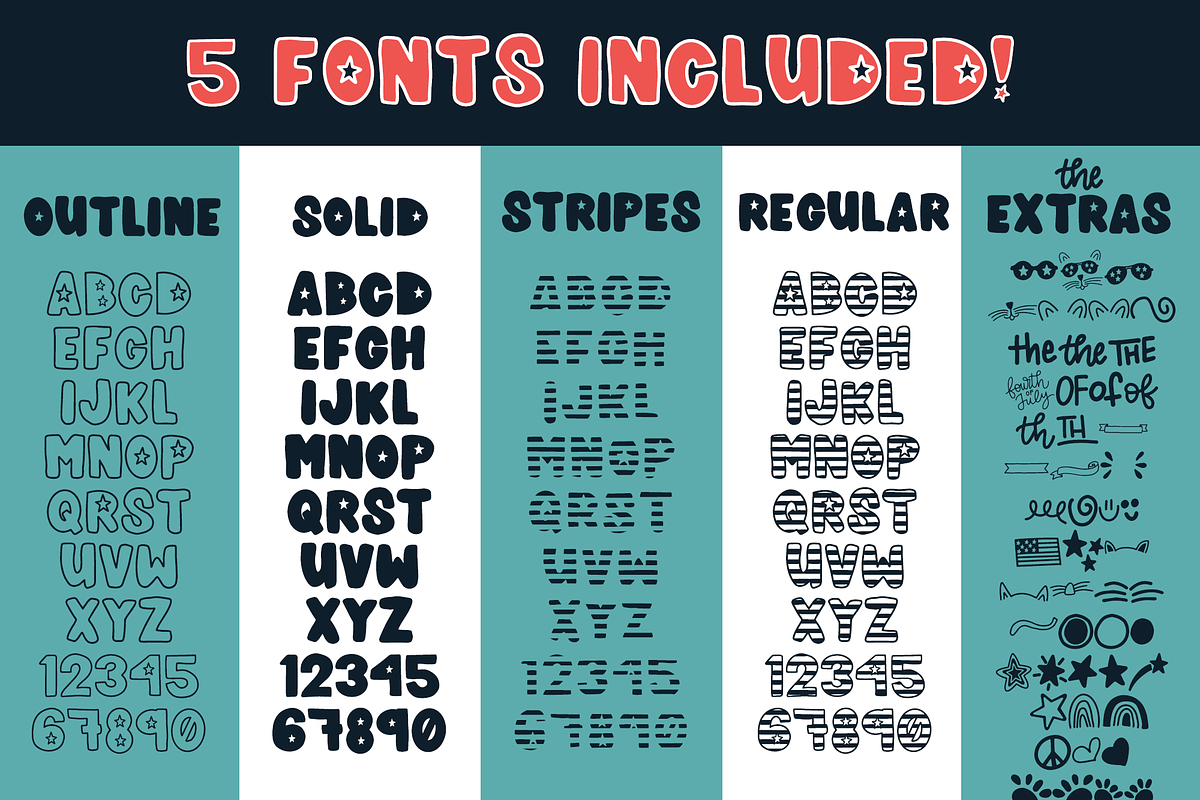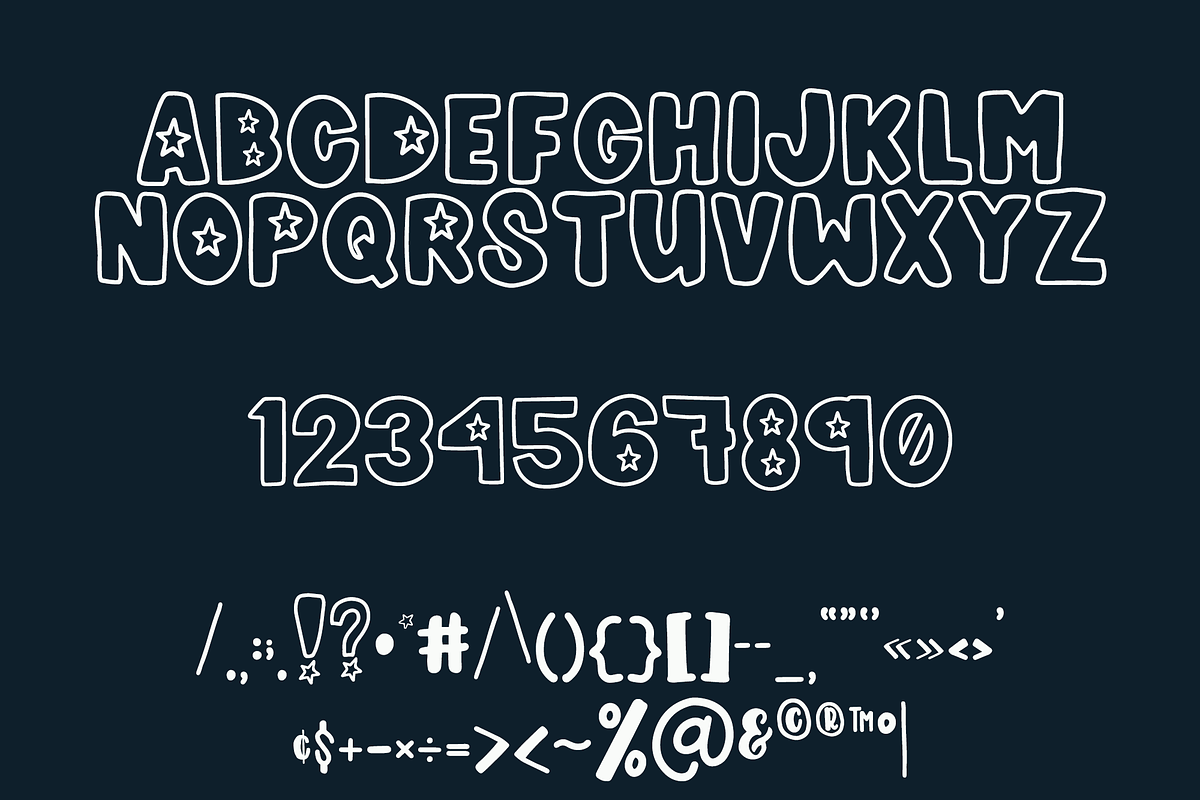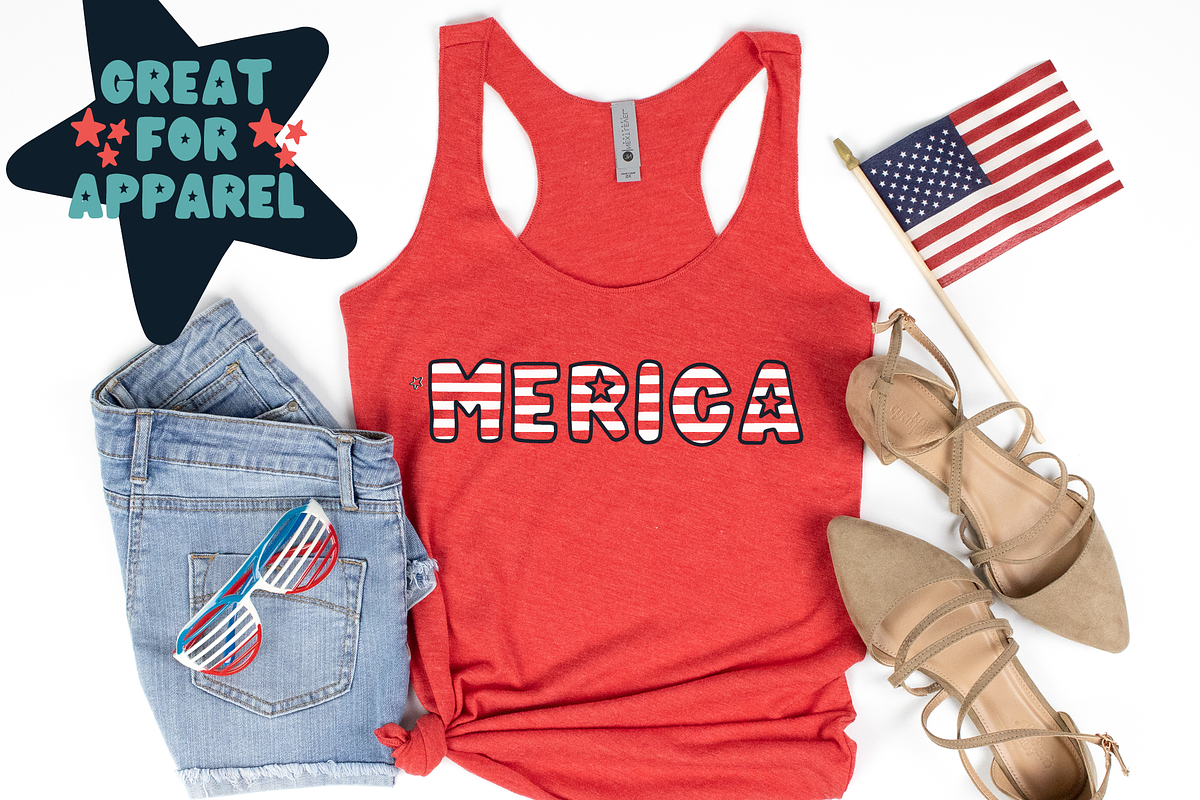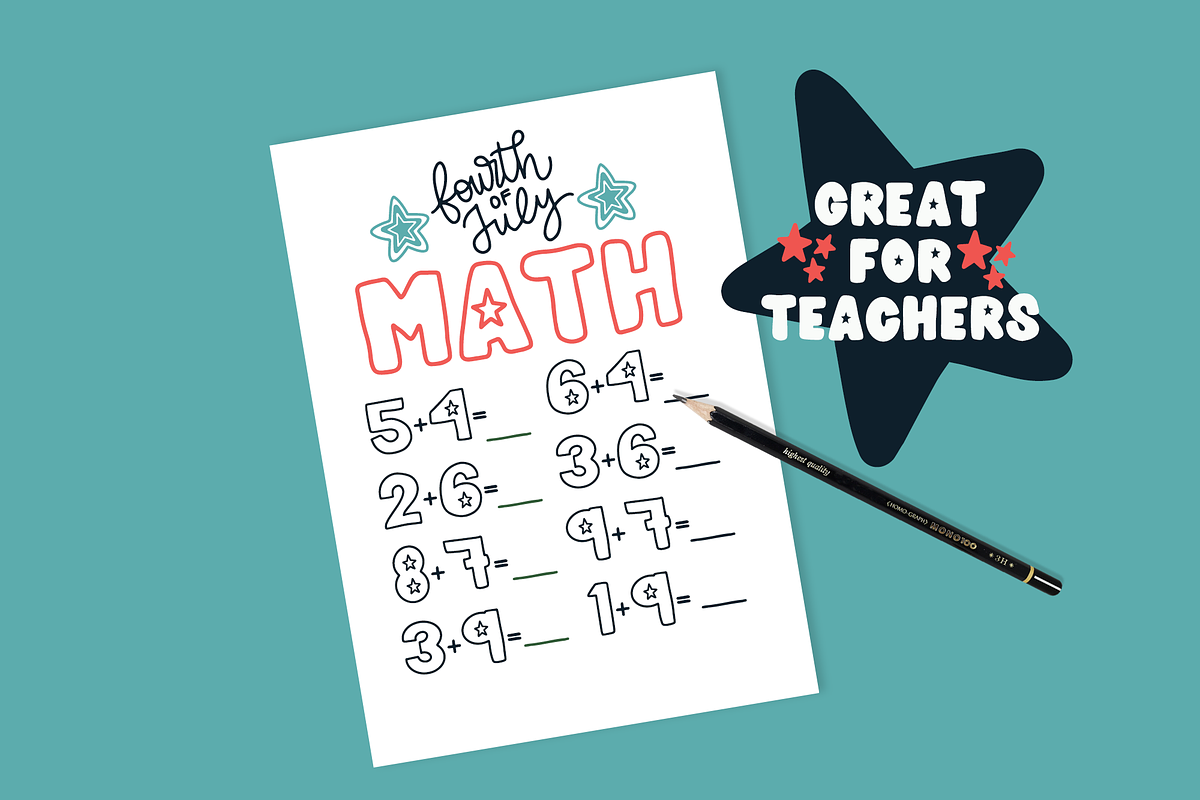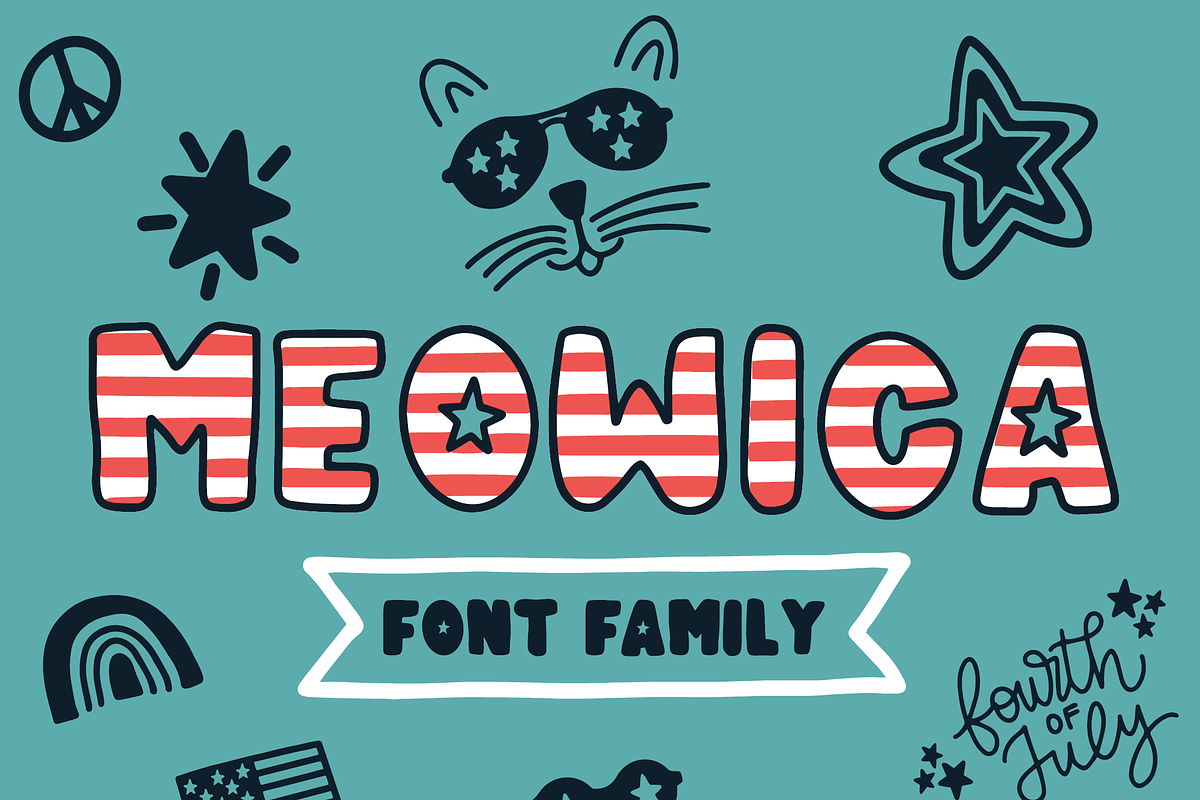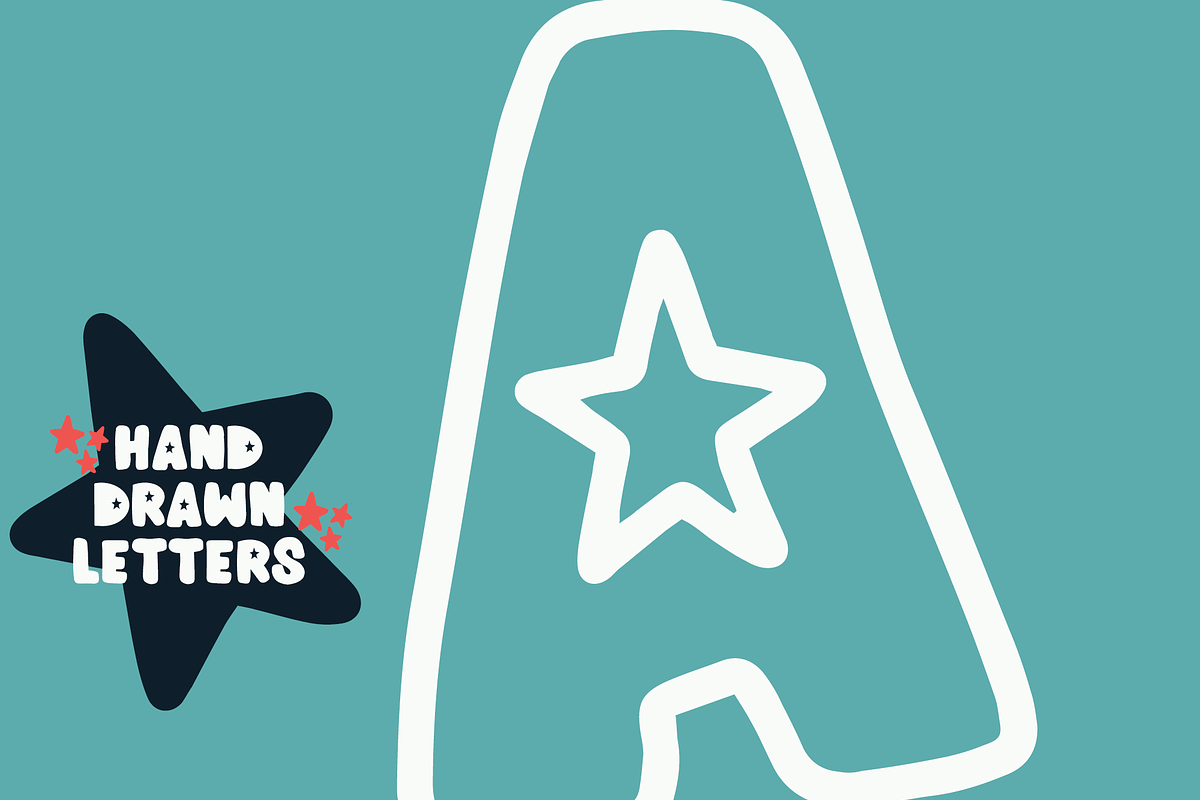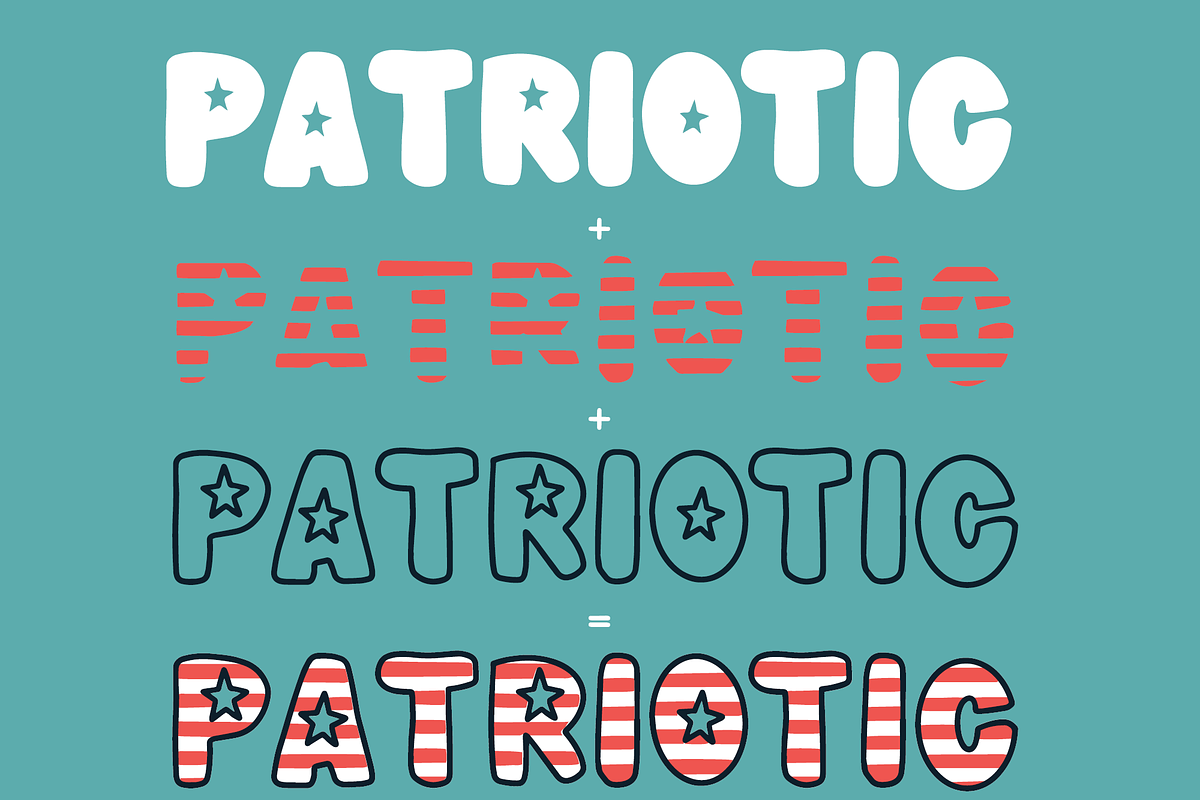
Meowica | A 4th of July Font Family
Meowica is a hand-lettered chunky font that features stars and stripes. It is perfect for all of your design work including USA 4th of July decorations, patriotic t-shirts, military mugs, party banners, kids Fourth of July school activity sheets, or print on demand products to name a few. Great for any patriotic project or design such as welcome home banners for those in the military.
This fun and festive 4th of July font family not only includes the regular Meowica version, but also the outline, solid, and stripes versions so that you can stack and layer to add some extra character to your project. It also includes the extras including some adorable catchwords, banners, and doodles!
- This fun and festive 4th of July font family not only includes the regular Meowica version, but also the outline, solid, and stripes version
- It also includes the extras including some adorable catchwords, banners, and doodles!
- Meowica Regular
- Meowica Outline
- Meowica Solid
- Meowica Stripes
- Meowica The Extras